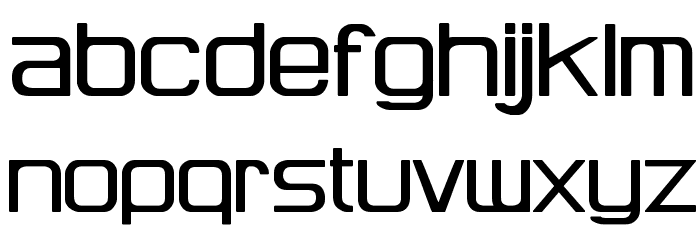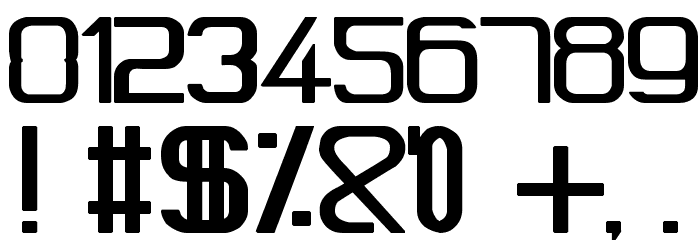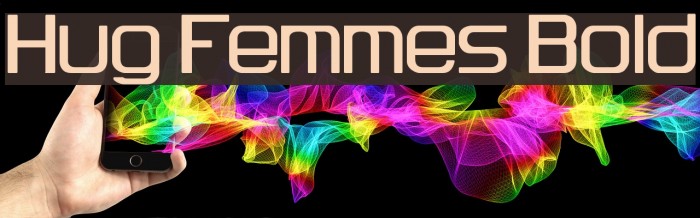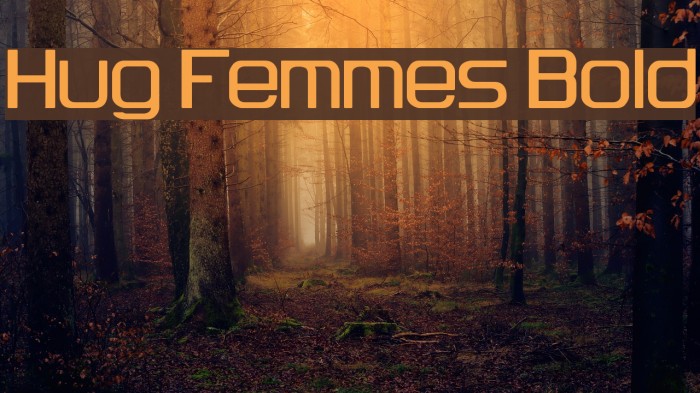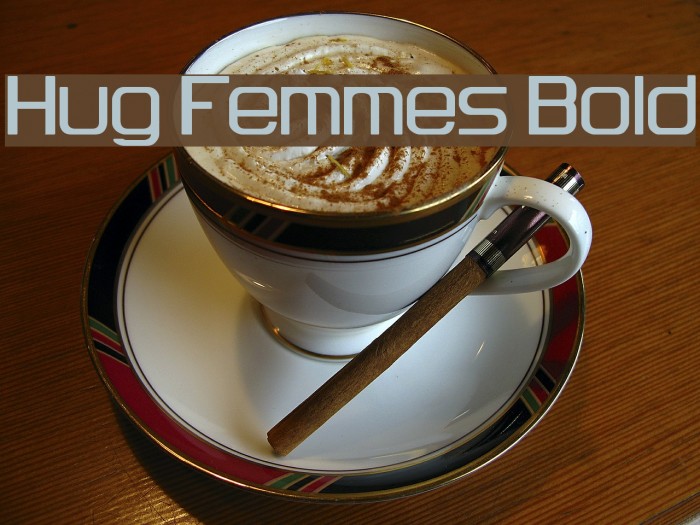
Hug Femmes Bold Font
This font features a bold, geometric design with a modern aesthetic. The characters are constructed with clean lines and a uniform stroke width, giving it a structured and contemporary look. The uppercase letters are particularly striking, with a strong presence that makes them ideal for headlines and titles. The lowercase letters maintain the same geometric style, ensuring consistency across text. The numerals and special characters are designed to match the overall style, with a focus on readability and visual impact. This font's design is versatile, making it suitable for a variety of design projects.
A bold, geometric font with a modern and structured aesthetic.
- Proposed Projects: Ideal for branding, advertising, posters, and digital media where a modern and bold statement is needed.